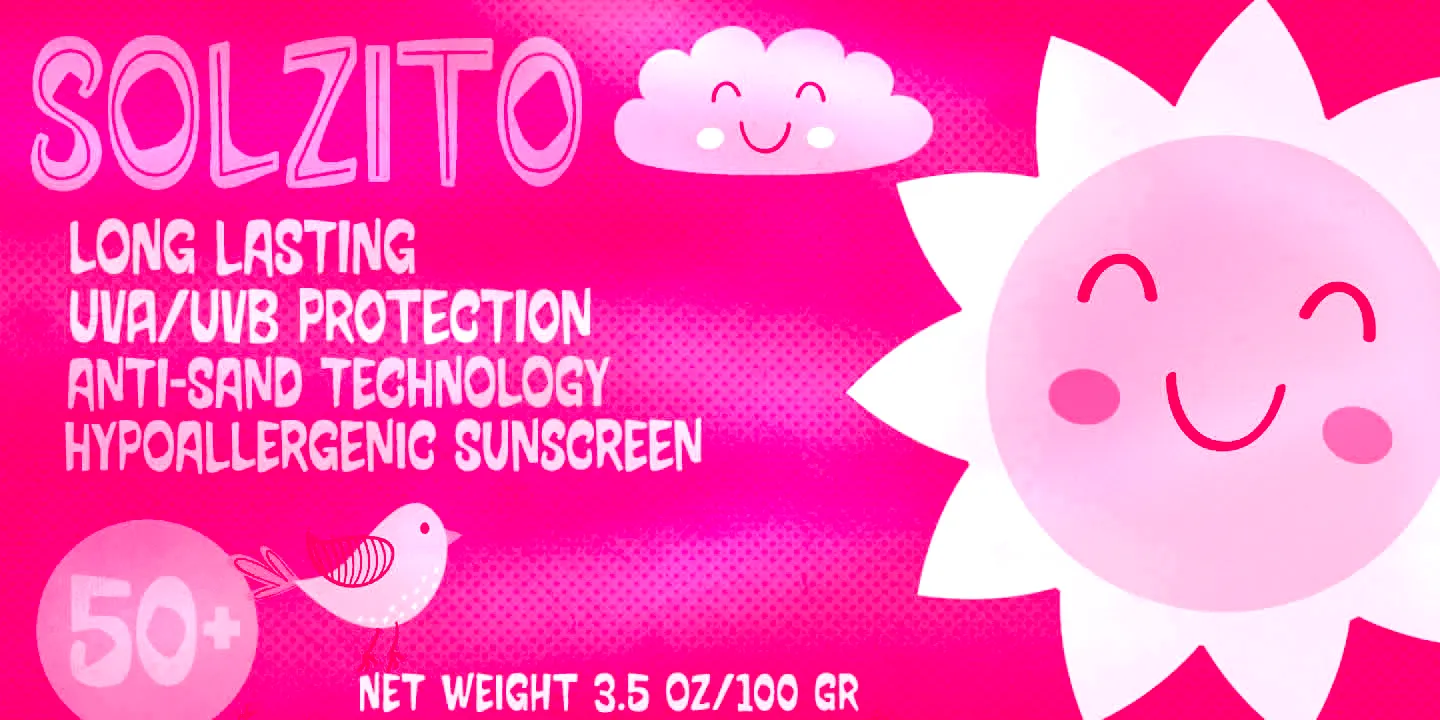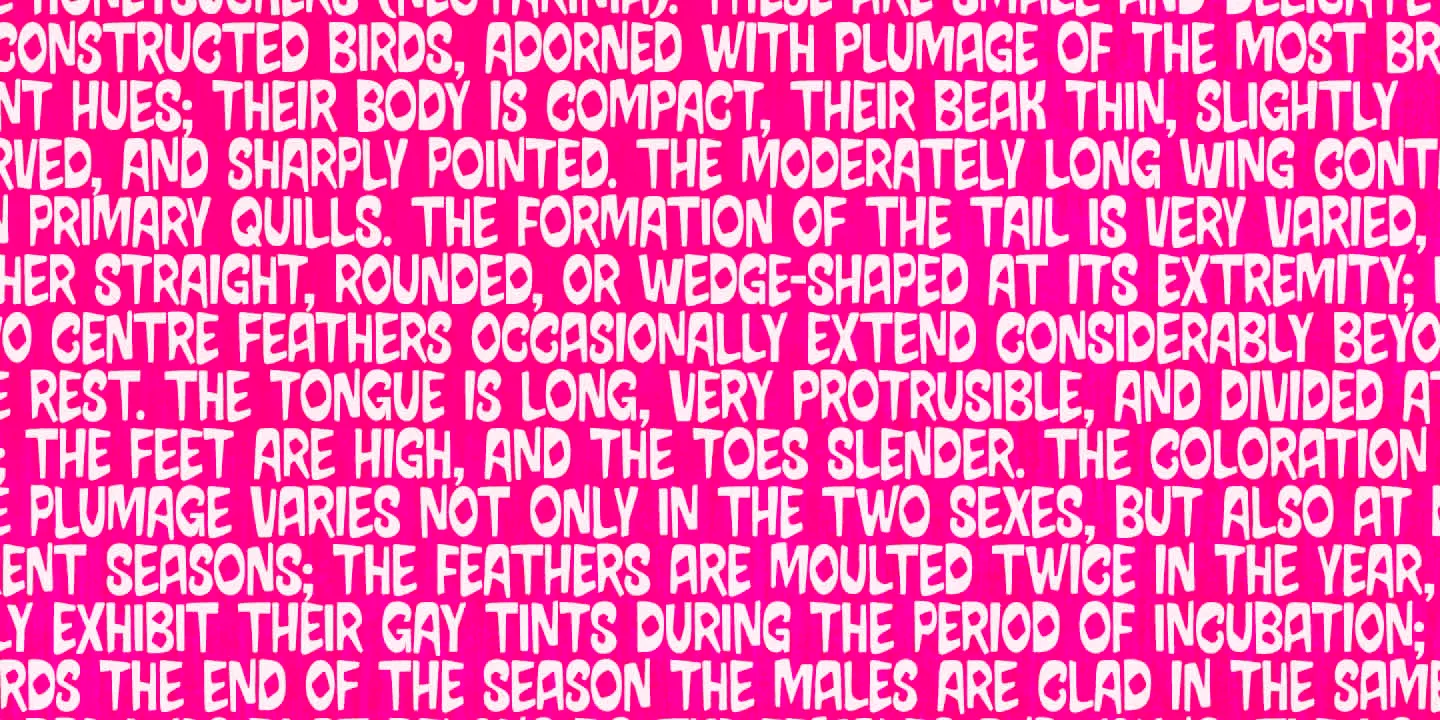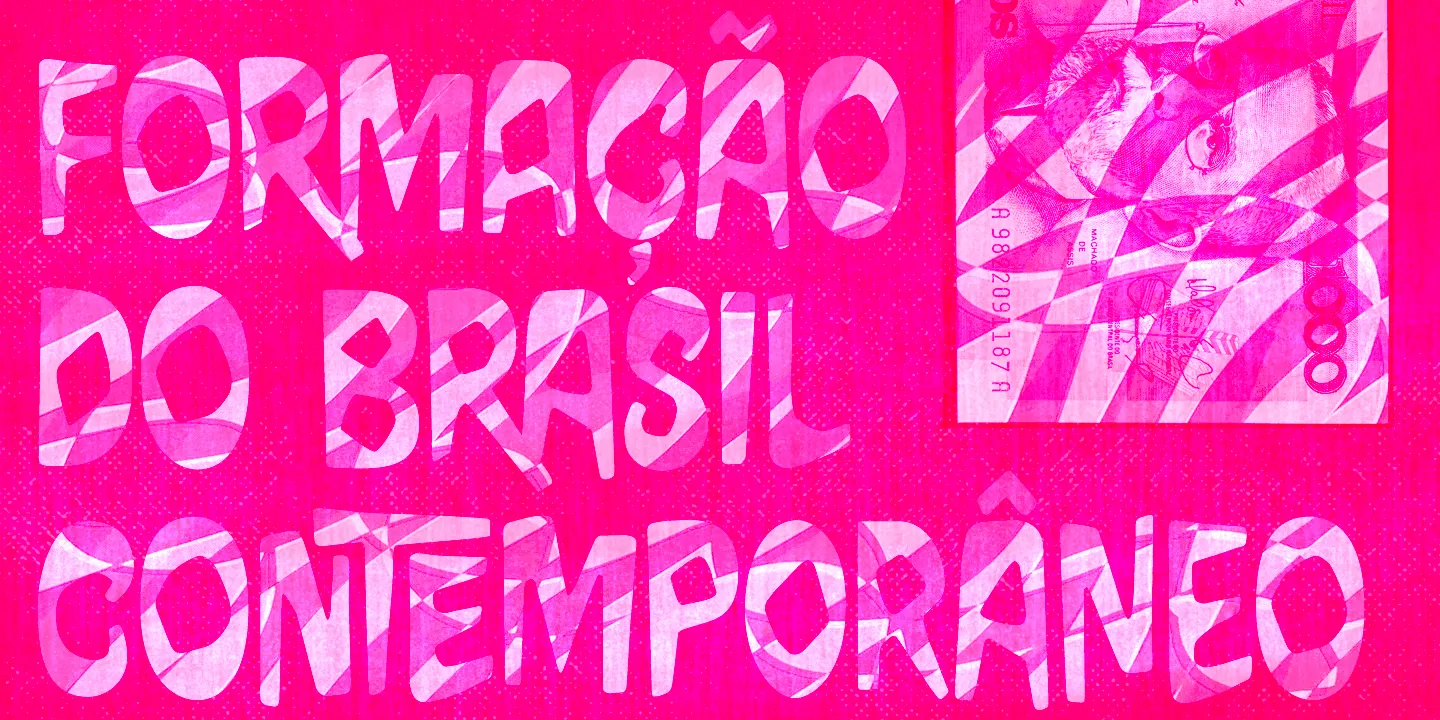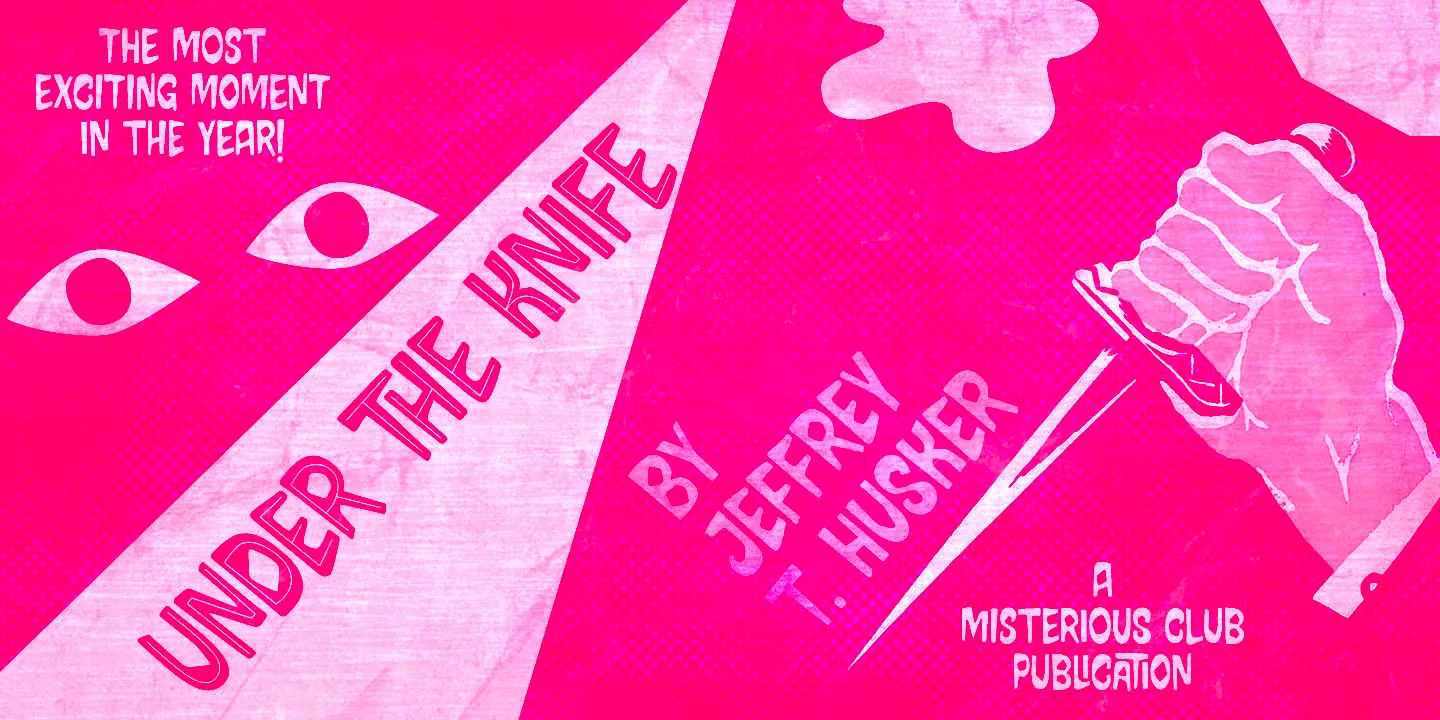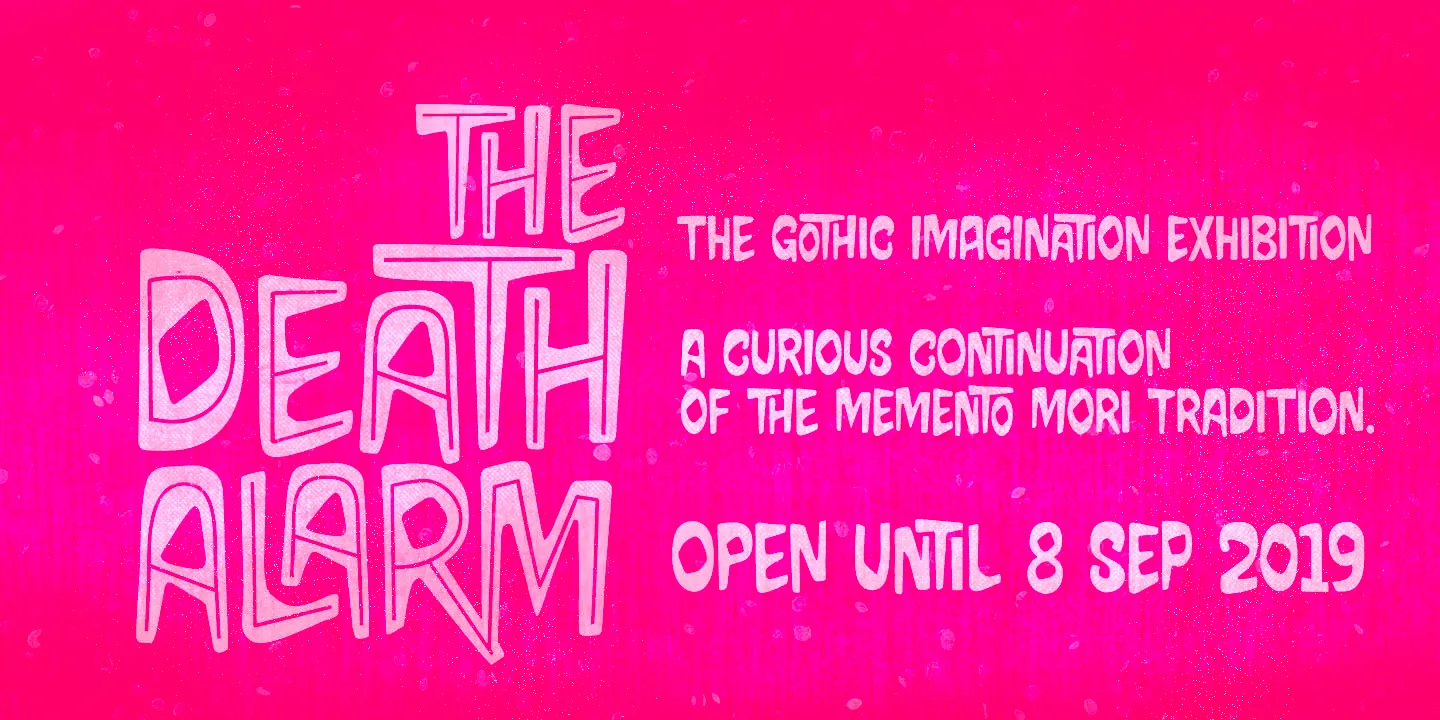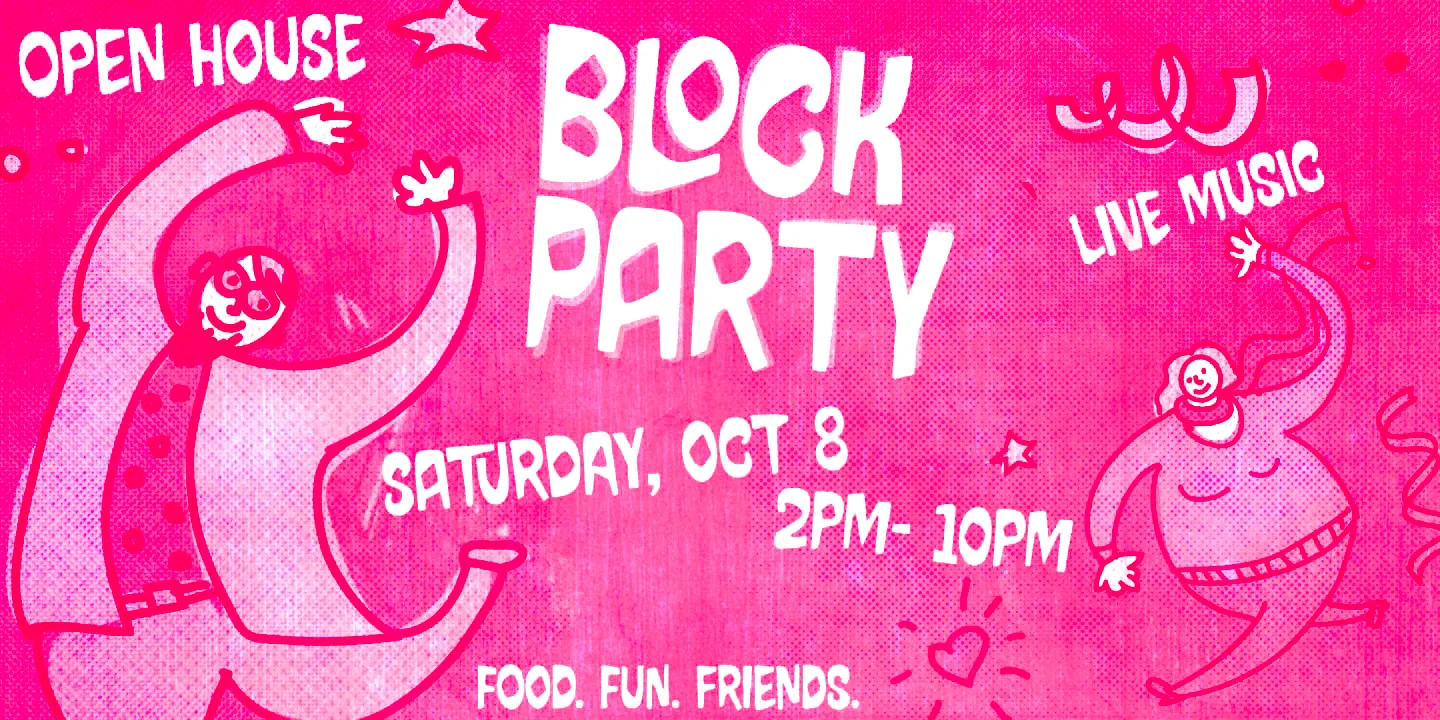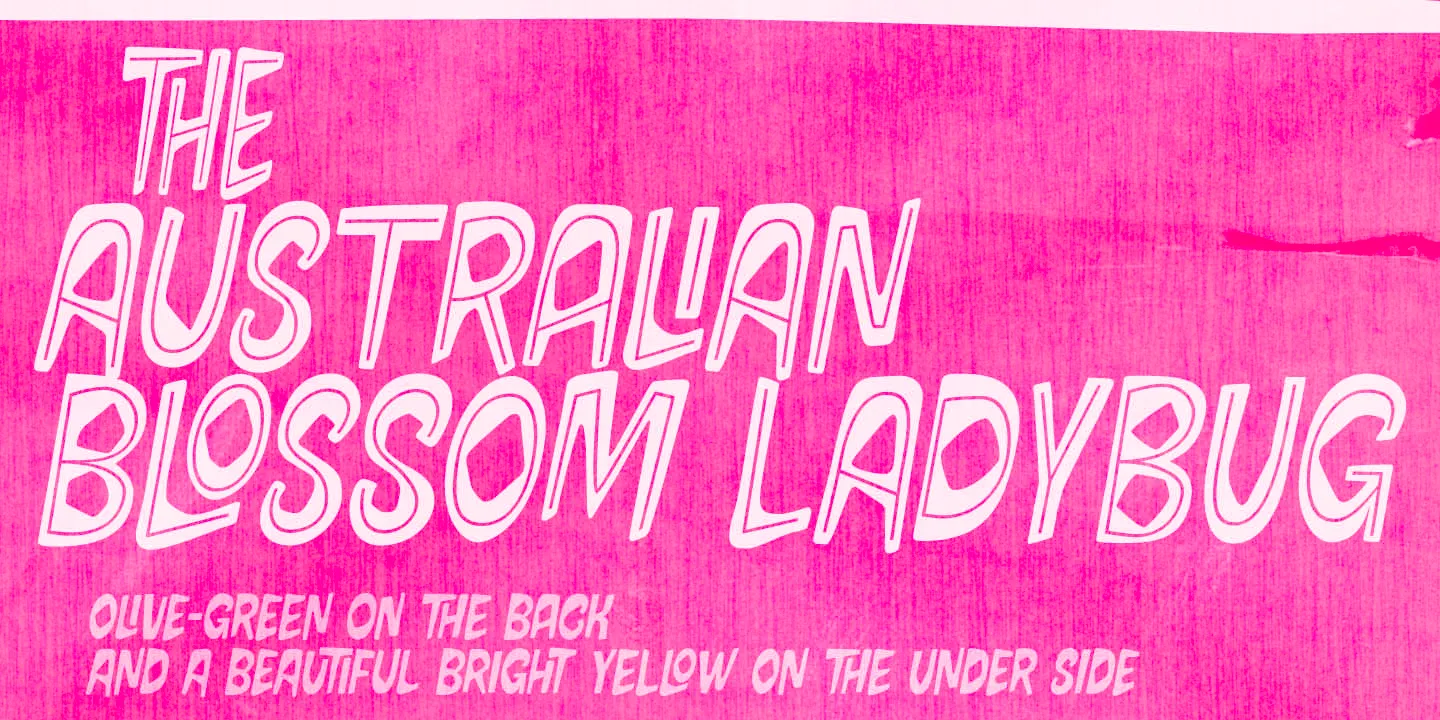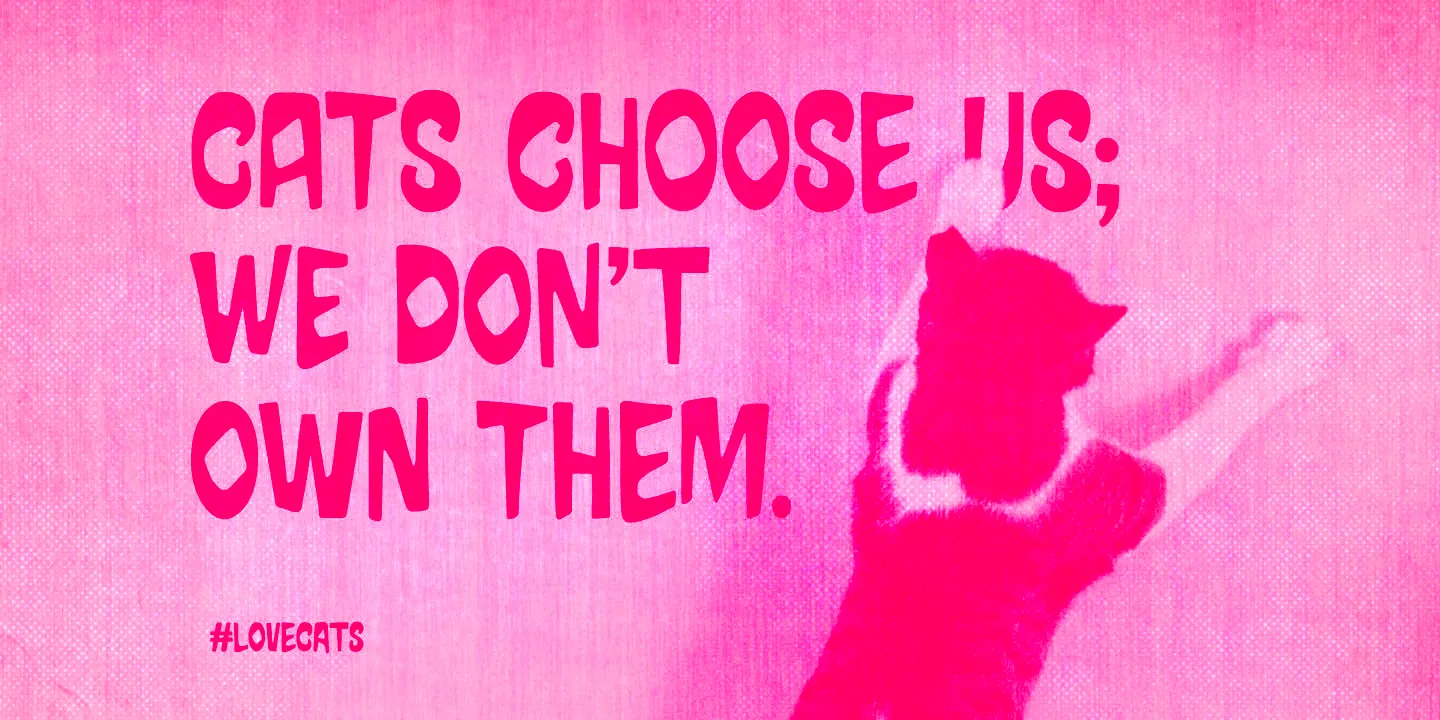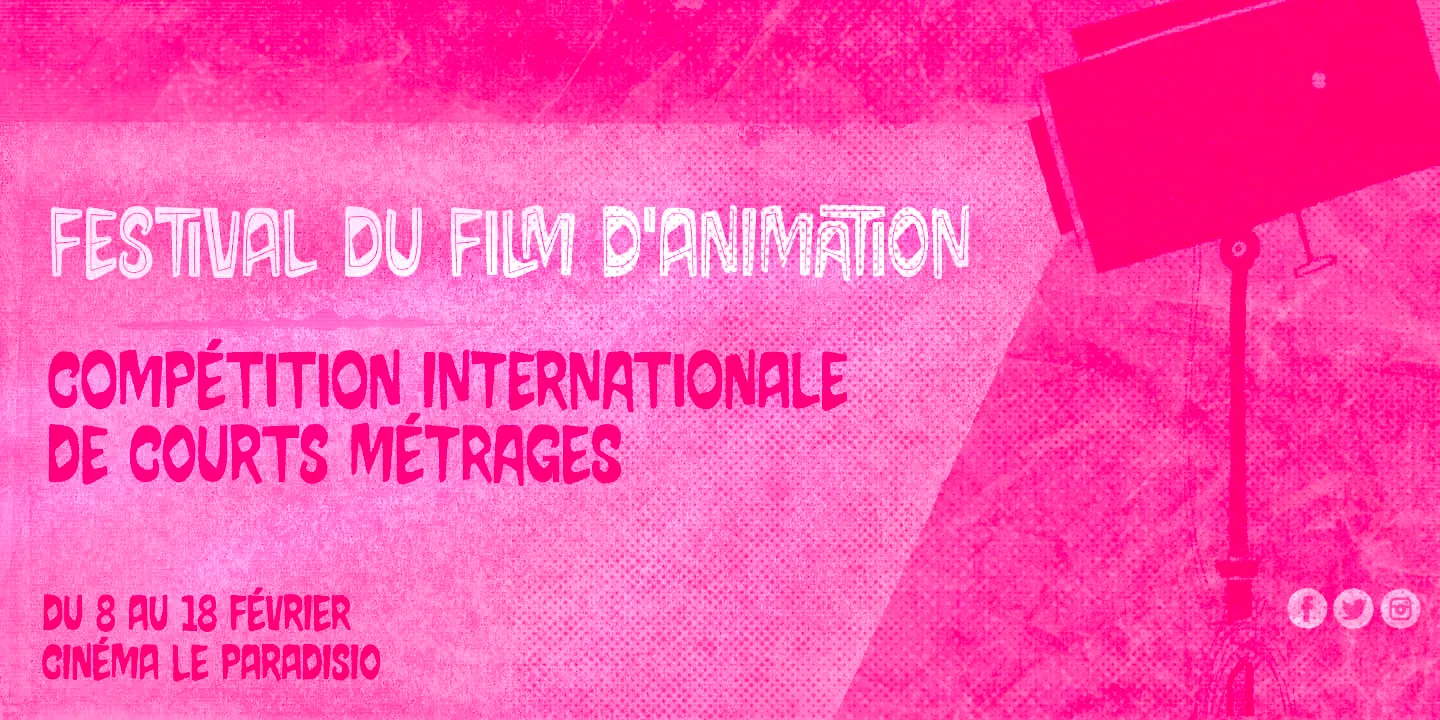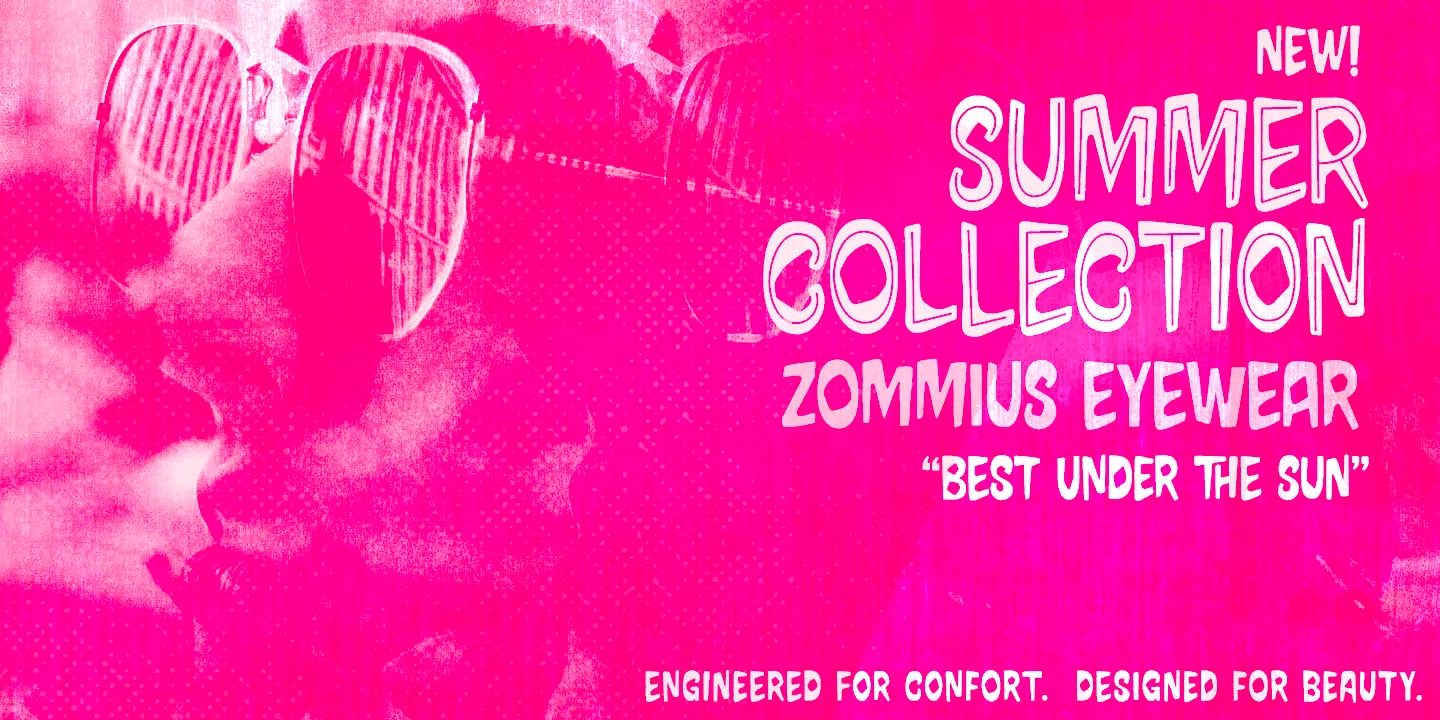
Pind-O-Rama
Pind-O-Rama is an unconventional hand-lettered font brimming with retro charm and playful energy. This typeface, with its unusual countershapes and interlock choices, has just the right amount of irregularity. Pindorama is what the native Tupi people originally called Brazil before colonization by the Portuguese. This font draws inspiration from a 1961 book edition on Brazil’s colonial background. Craving fun? Add a touch of nostalgic flair with this go-to for posters, packaging, and album art.
• Discretionary Ligatures